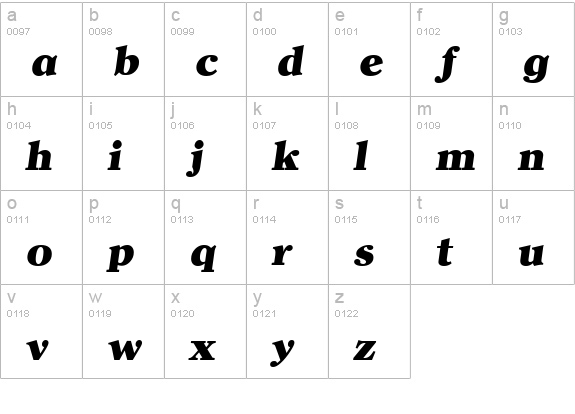
ClearfaceSerial-Heavy-Italic is a heavy, high-impact, italic variant in the ClearfaceSerial typeface family \xE2\x80\x94 well suited to high-impact headlines, posters, and display advertising.
ClearfaceSerial-Heavy-Italic is a bold and sophisticated font that exudes elegance and professionalism. Its strong and slanted design adds a touch of flair to any project, making it perfect for headings, titles, and logos. The italicized characters add a sense of dynamism and style to your text, ensuring that your message stands out. What sets ClearfaceSerial-Heavy-Italic apart is not just its striking appearance, but also the fact that it is freely available to download at FontsMarket.com. This means that you can elevate your designs without breaking the bank, making it a valuable addition to any designer's toolkit. Whether you're working on a print project, digital design, or branding, ClearfaceSerial-Heavy-Italic is sure to make a bold statement and leave a lasting impression. Download it today and take your typography to the next level!